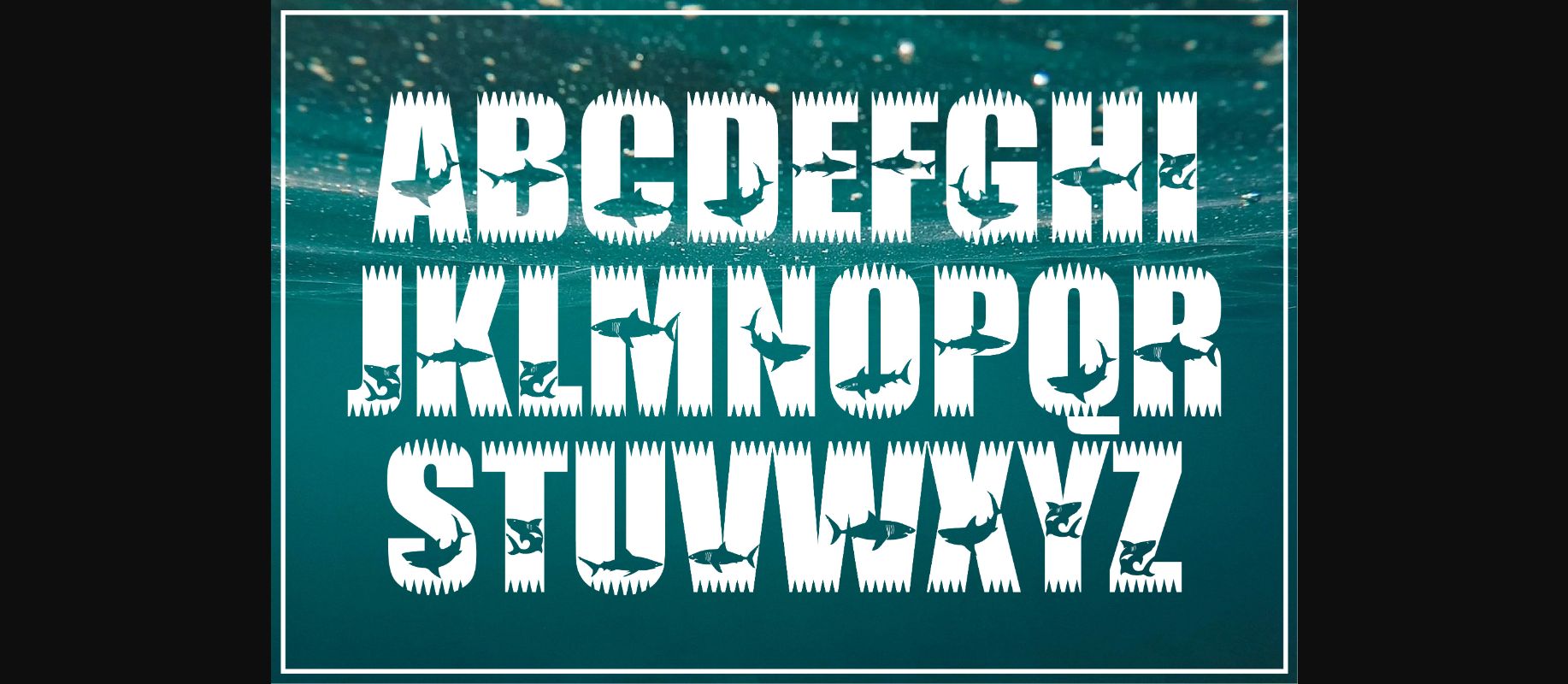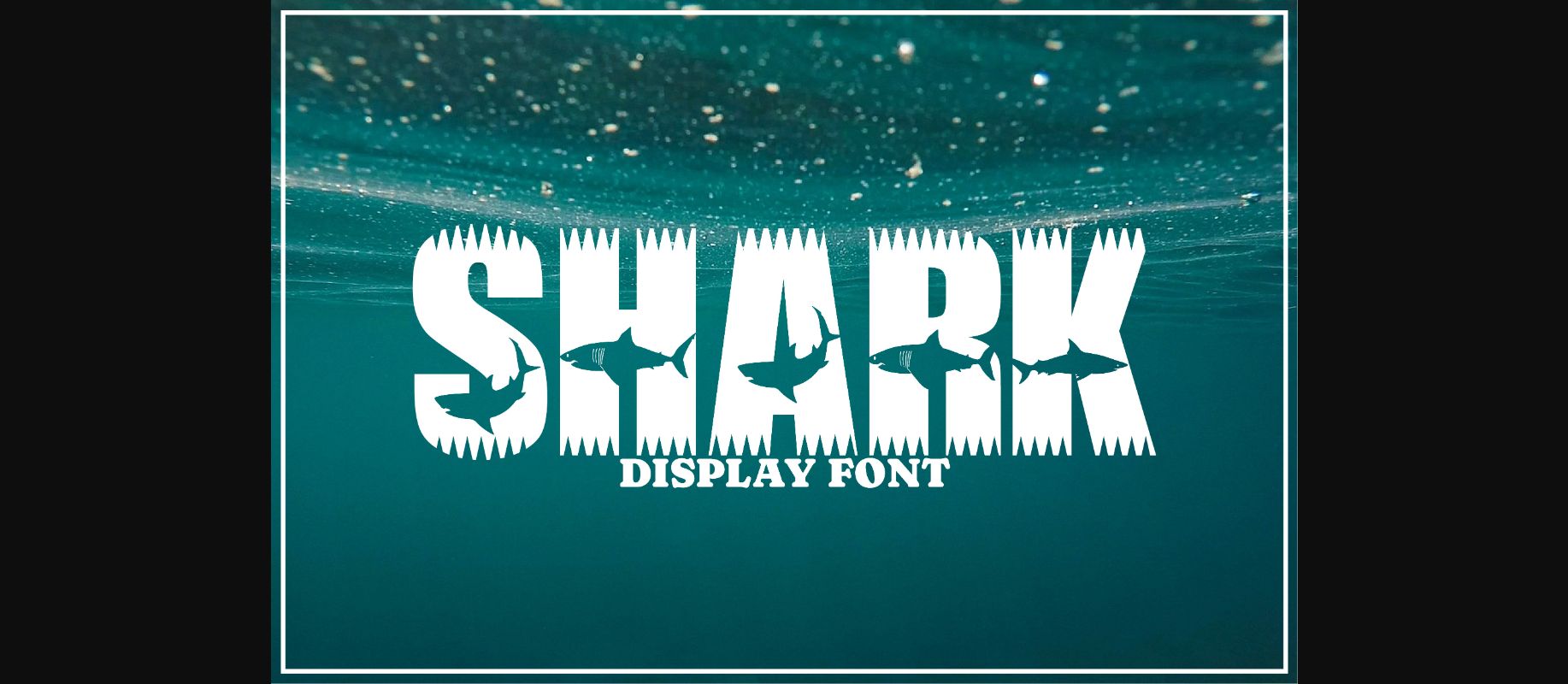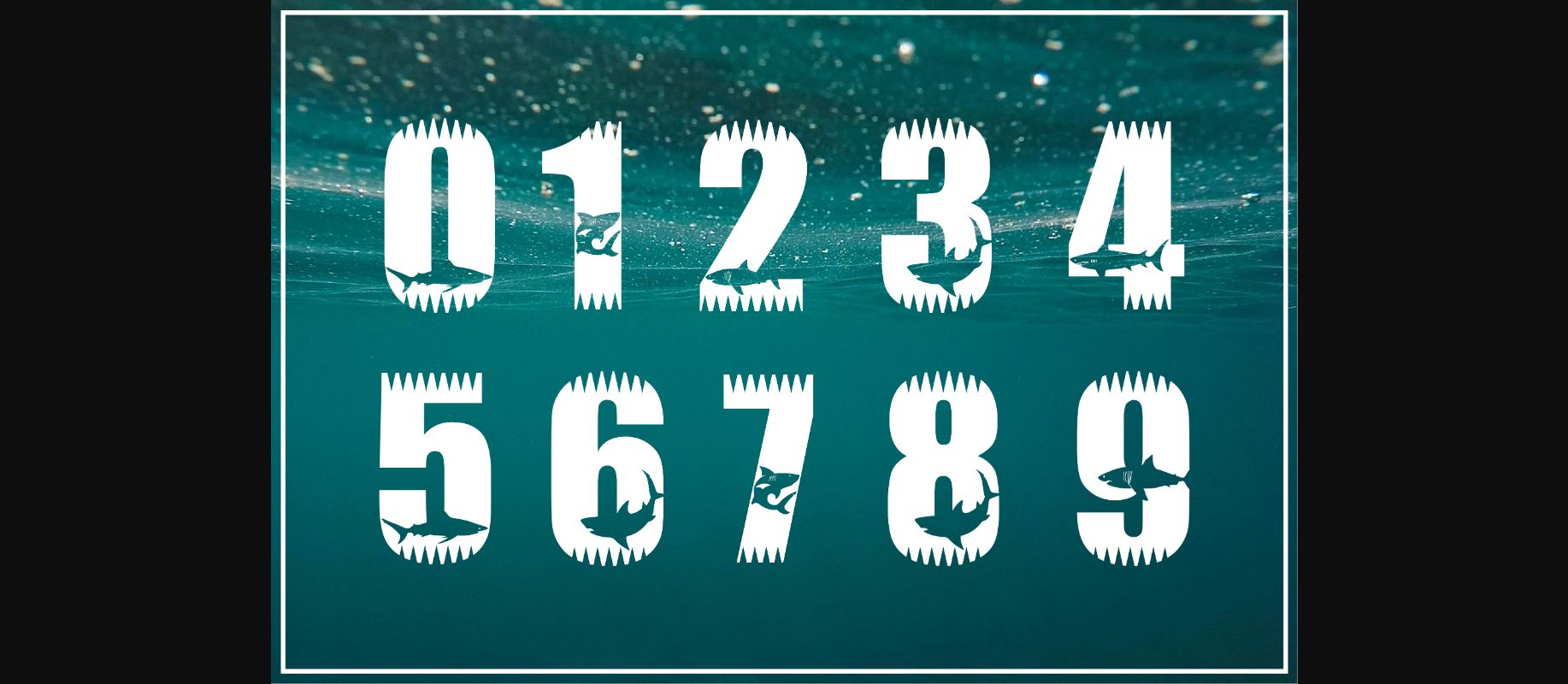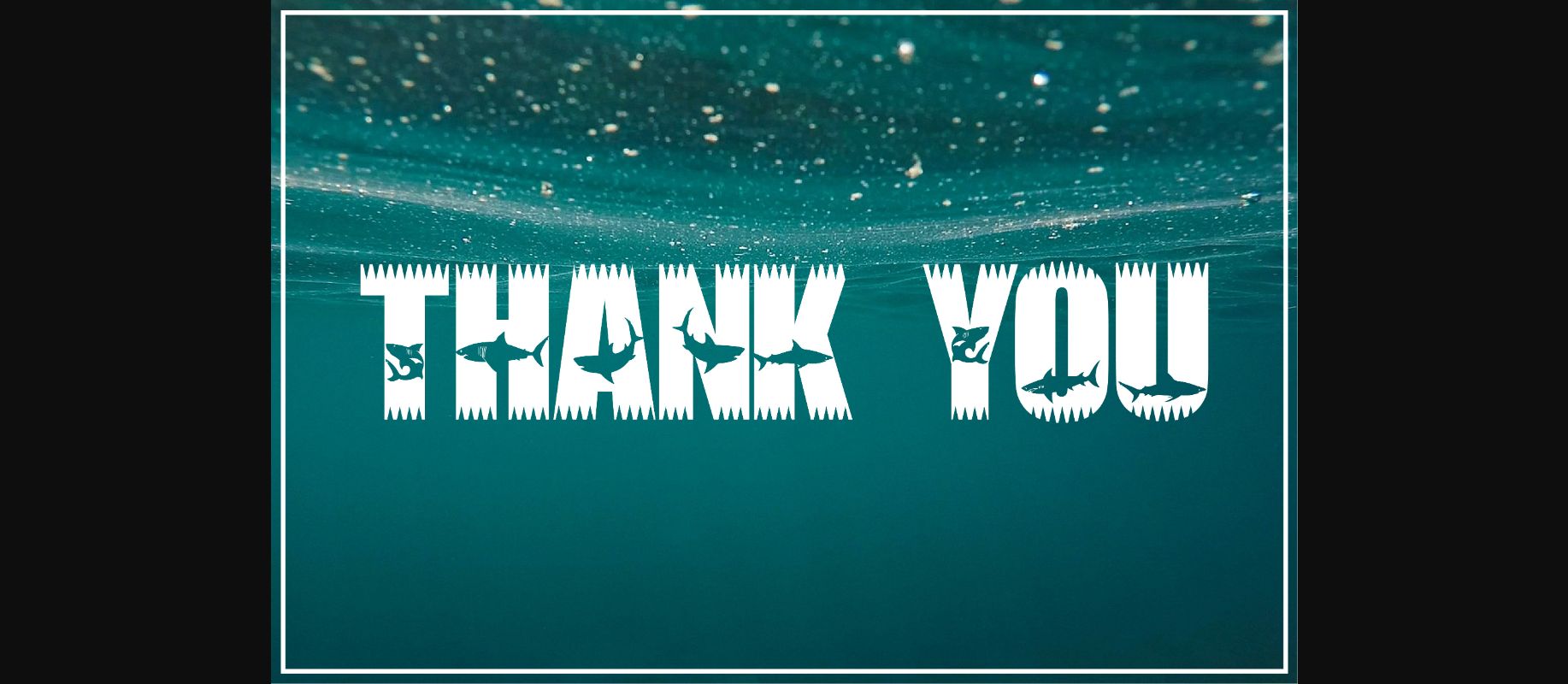
Shark Font
About Shark Font
Shark is a and dramatic decorative font. It is perfectly suitable for any design or crafty idea! Add it confidently to your projects and you will love the results!